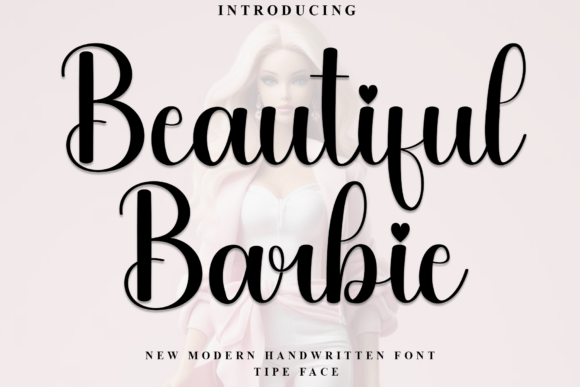
Meet Your New Favorite Font: Beautiful Barbie Font
Have you ever been in a creative rush, frantically searching for the perfect font to bring your design to life? You scroll through countless options, but none seem to capture the essence of your vision. That’s when you stumble upon the Beautiful Barbie Font – a game-changer for designers who crave a touch of warmth and friendliness in their work.
Beautiful Barbie Font is a casual and creative font that’s perfect for personal projects, invitations, and social media graphics. Its round, playful strokes create a relaxed and approachable feel that’s sure to captivate your audience. With its charming, hand-drawn aesthetic, this font adds a unique touch to any design, making it a valuable asset for designers who want to stand out from the crowd.
Beautiful Barbie Font Key Features
- Font Family: Beautiful Barbie is a unique, hand-drawn script font designed to resemble a child’s handwriting.
- Unique Characteristics: The font features a playful, whimsical feel, with irregular letterforms and subtle connections between letters, giving it a handwritten, childlike quality.
Beautiful Barbie Font Review
I recently had the chance to work with the Beautiful Barbie Font, and I must say it’s a mixed bag. On the one hand, it’s a lovely, whimsical font that could add a touch of femininity to any project.
- The font’s unique, flowing lines and curves make it perfect for projects that require a touch of elegance and sophistication.
- The variety of weights and styles available make it easy to customize the font to fit your needs.
- The font is highly legible, making it easy to read even in smaller sizes.
- The font can feel a bit too over-the-top or cartoonish for some projects, particularly those that require a more serious tone.
- The font’s design can be a bit too busy for some users, making it difficult to read in certain contexts.
Overall, I would say that the Beautiful Barbie Font is a great choice for projects that require a touch of whimsy and femininity, but may not be the best fit for more serious or technical projects.
The Beautiful Barbie Font is perfect for:
Wedding invitations and decorations
Children’s party graphics and decorations
Social media graphics and advertisements
Photography and art projects